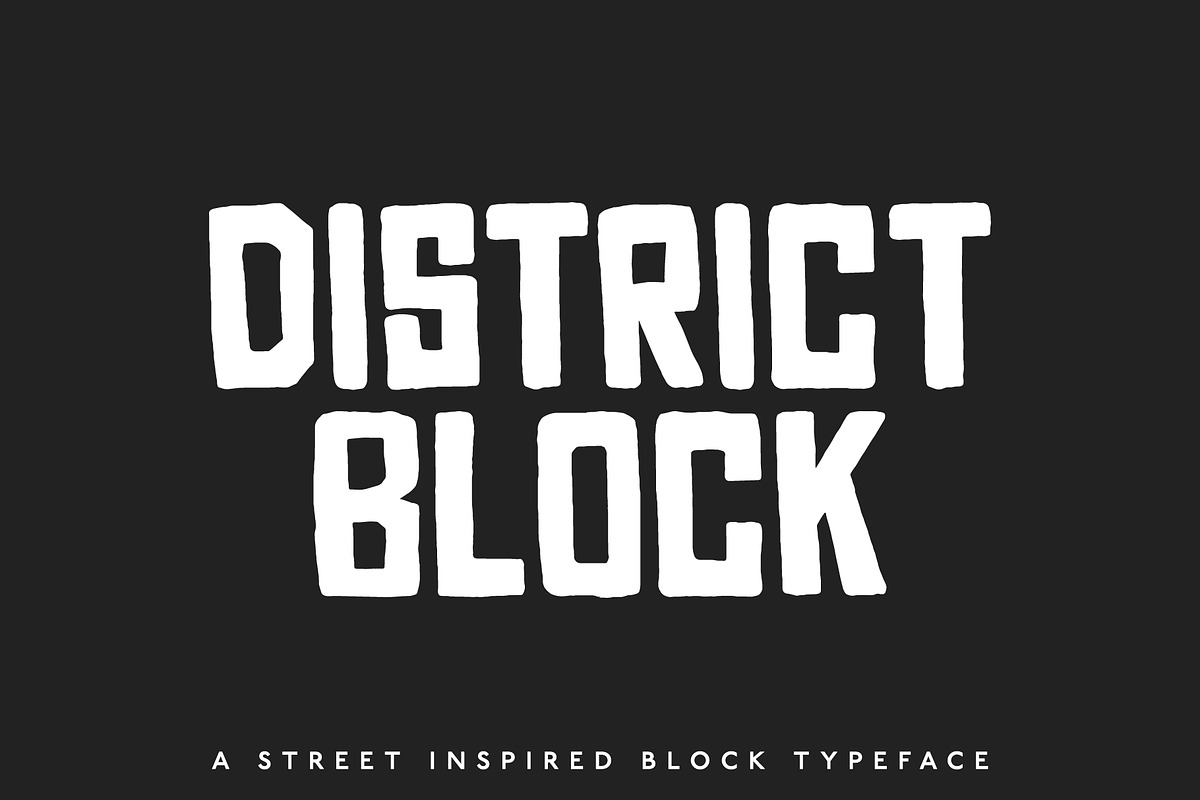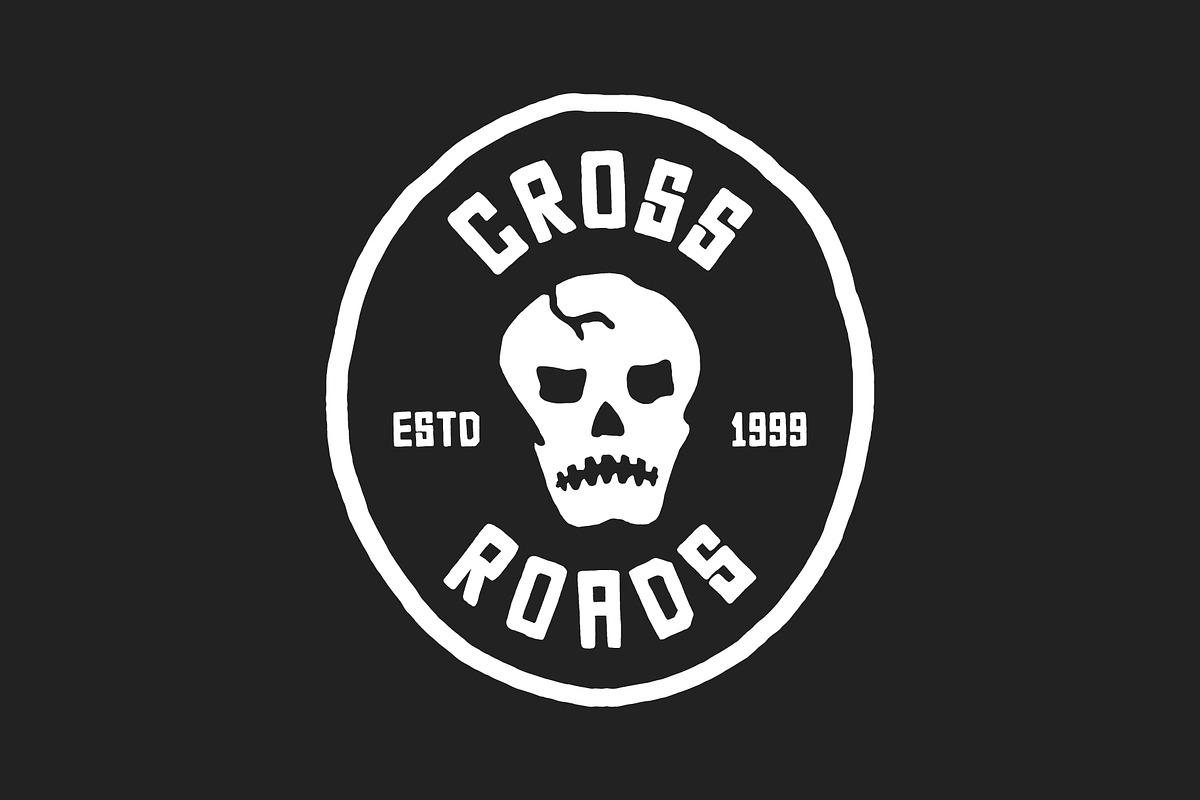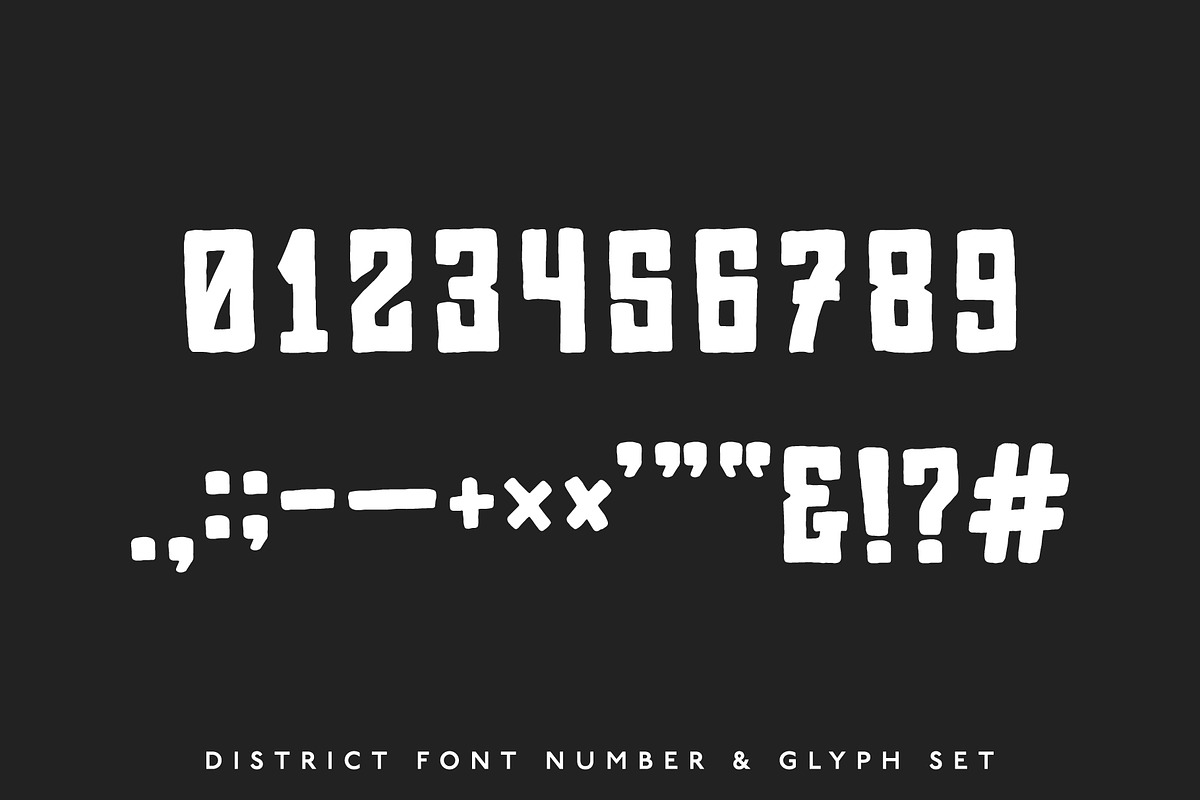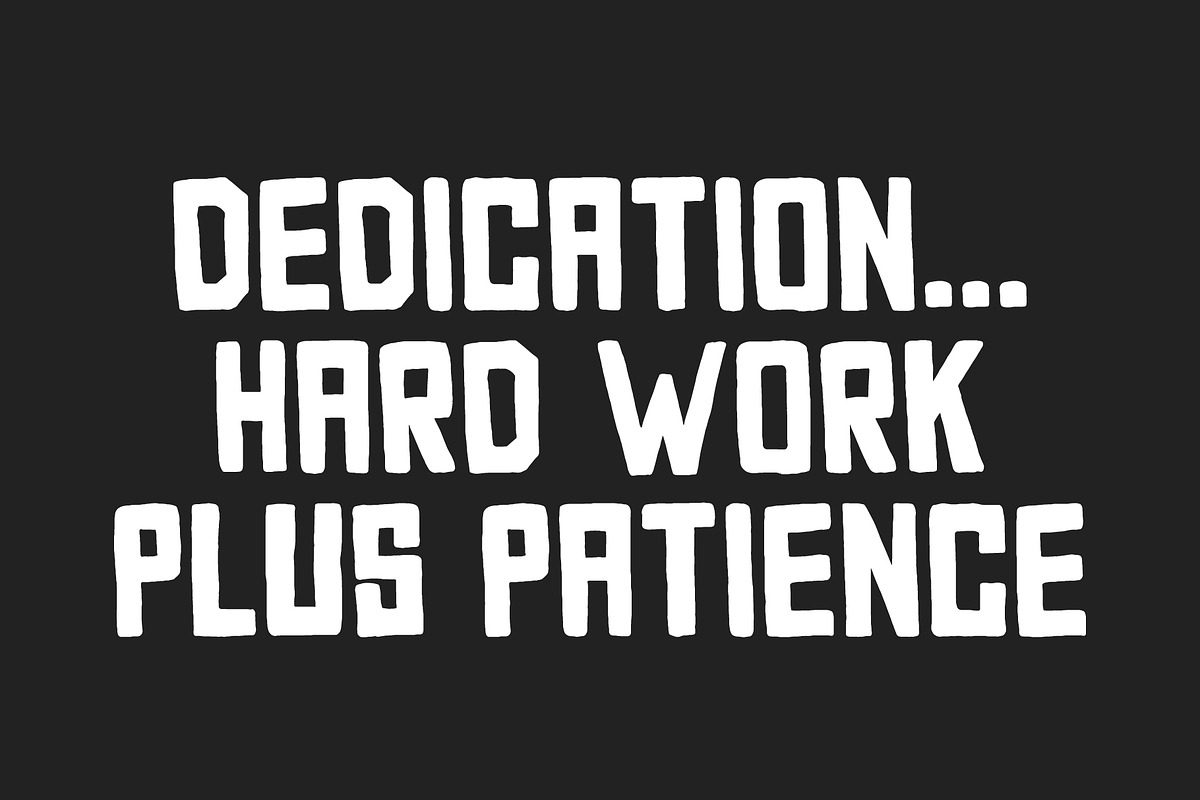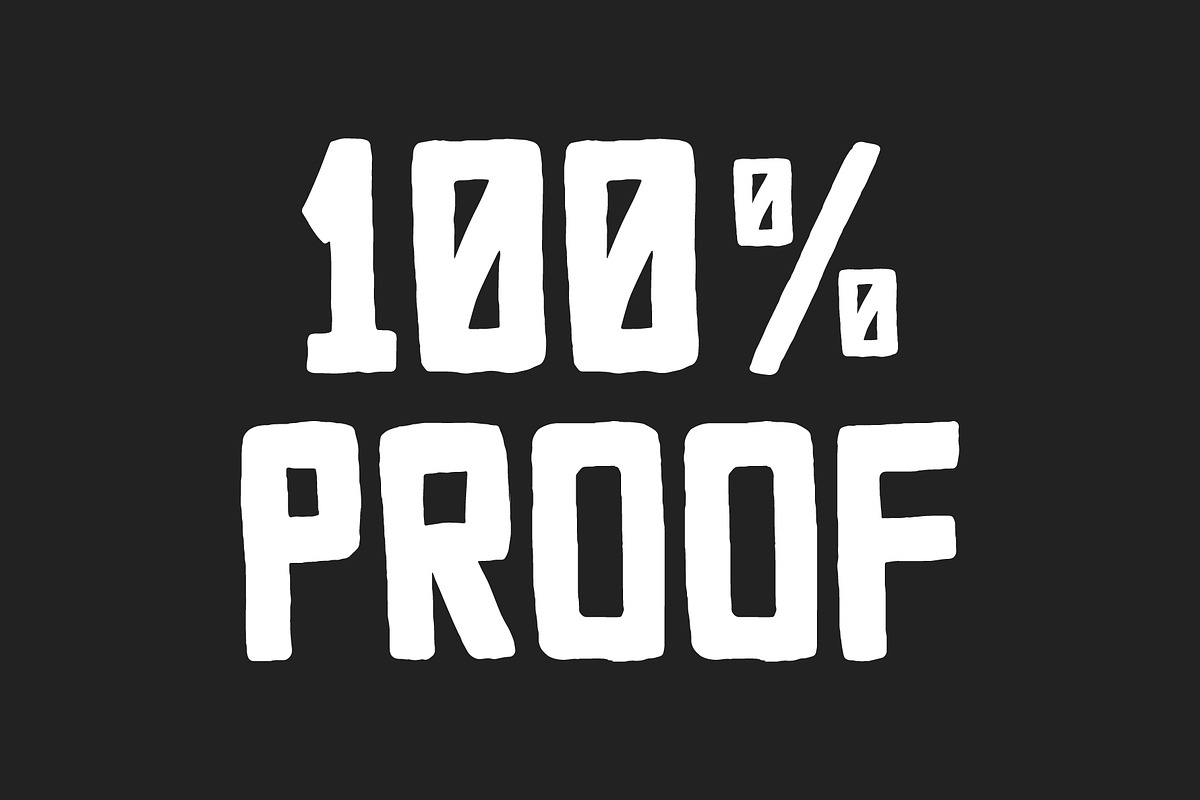
District Block — A Street Block Font
DISTRICT BLOCK — A Street Inspired Block Typeface
District Block is a block typeface with some attitude. Taking inspiration from hand-painted street signage, District is rough around the edges with a sharp edge. Created by hand, it has a natural feel to the letterforms. District is the perfect display typeface to apply to headlines, apparel, and brand work.